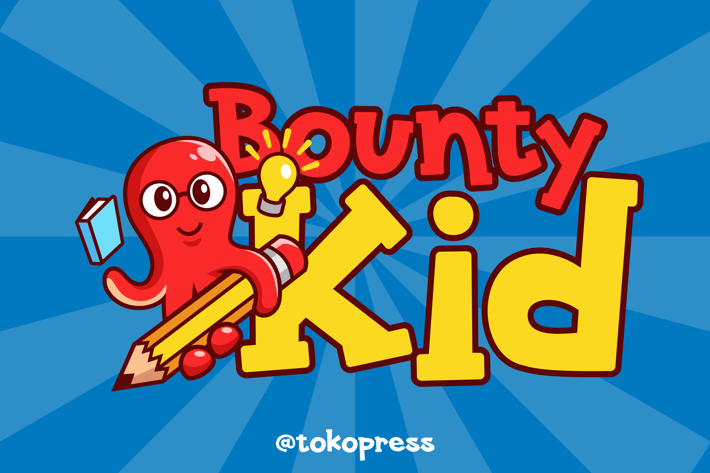
Bounty Kid - Cartoon Font
Bounty Kid is a playful rounded typeface crafted for high-impact kids visuals, combining a bouncy baseline, chunky proportions, and expressive cartoon character. Inspired by bold, joyful illustrations and friendly characters, this font instantly captures attention with its soft curves, low contrast, and fun-loving letter structure. It brings a lively, youthful vibe that perfectly fits educational content, game UIs, and kid-targeted product packaging.
Whether you're designing a children’s YouTube thumbnail, building a colorful app interface, or branding a cooking class for kids, Bounty Kid delivers an inviting tone and a touch of humor. Its visual energy supports storytelling, gamification, and edutainment while maintaining readability and warmth. It's the go-to typeface for anyone looking to connect with young audiences in a sincere and delightful way.
Key Features :
- Playful & Bold: Each letter pops with energy and clarity.
- Kid-Friendly: Soft shapes and quirky rhythm fit perfectly into children’s visual language.
- Instantly Readable: Large counters and balanced proportions ensure high legibility even at smaller sizes.
- Flexible Use Cases: Works across social media graphics, kids menus, learning tools, and more.
- Illustration-Ready: Pairs beautifully with mascots, characters, and hand-drawn elements.